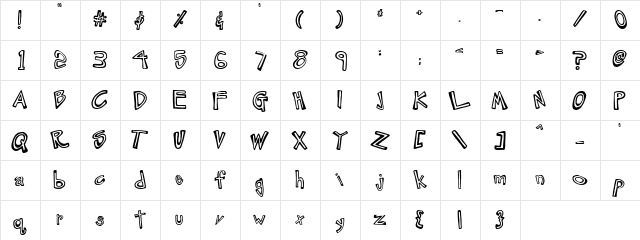
PC Uneven Outlines Regular
Design Context for PC Uneven Outlines Typeface
PC Uneven Outlines brings ornamental detail and strong personality to headlines and identities, where visual impact matters more than quiet functionality.
Font Pairing: Pair with a clean neutral sans-serif for body copy to let PC Uneven Outlines's character lead without overwhelming the composition.
Pro Tip: Use PC Uneven Outlines exclusively at display sizes — it was designed to be seen, not read at length. Let a neutral companion handle body copy.